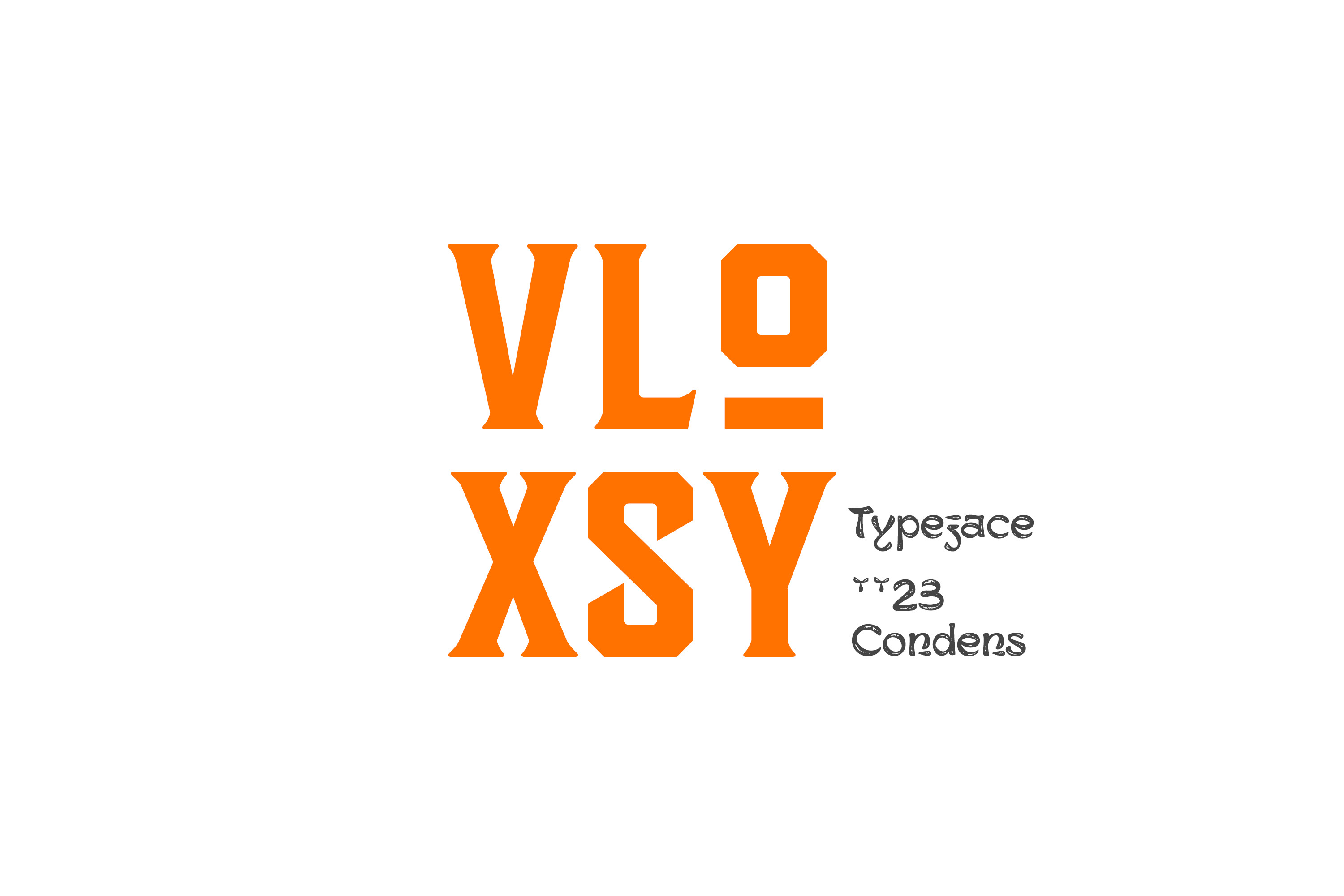
VLOXSY Typeface
DESCRIPTION of The Typeface
VLOXSY Typeface by Saystype
Introducing our new product "VLOXSY" Strong Masculine Modern Vintage Condensed Serif Old style font with Clean, Stylish and Ellegant style. Suitable for any kind of project such as logos, Branding, App, Letterhead Etc.